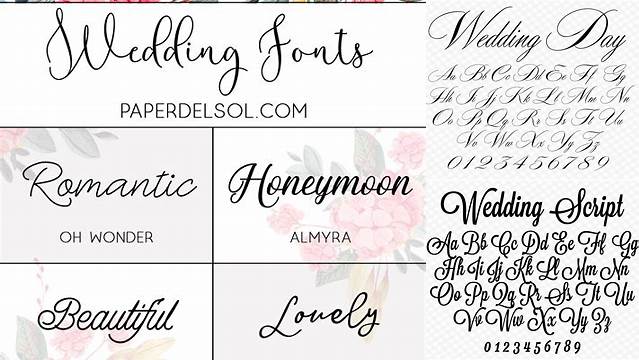
Cursive Fonts For Wedding Cards: A Guide To Elegant Invitations
Hey everyone! Planning a wedding is a whirlwind, right? From the venue to the dress, there's a lot on your plate. But one of the most important details is often overlooked: the wedding invitations. And what makes an invitation truly stand out? The font! Today, we're diving deep into the world of cursive fonts for wedding cards. We'll explore the best options, how to use them, and why they're the perfect touch of elegance for your special day. So, grab a coffee (or tea!), and let's get started. We're going to cover everything from the classic looks to some fresh, modern takes. Get ready to find the perfect font to make your wedding invitations unforgettable!
H2: The Timeless Allure of Cursive Fonts
So, why are cursive fonts for wedding cards so popular? Well, guys, it all boils down to a few key things. First off, cursive fonts exude a sense of timeless elegance. Think about it: they evoke a feeling of romance, sophistication, and a touch of old-world charm. They're the kind of fonts that make you want to frame the invitation, right? They have a way of making your wedding feel extra special. The swirling strokes and flowing letters instantly elevate the overall look of your invitation, making it clear that this is a celebration of love. Cursive fonts also add a personal touch. They often mimic handwriting, which makes the invitation feel more intimate and less like a mass-produced flyer. This personal touch is especially important for weddings. Because, let's be real, your guests want to feel like they're part of something personal and meaningful. This feeling is exactly what cursive fonts are designed to provide. Plus, cursive fonts are versatile. They can be paired with a variety of design elements, from classic floral patterns to modern geometric designs. This versatility means that you can use cursive fonts to create a wedding invitation that perfectly reflects your unique style and the overall theme of your wedding. It really is all about making your wedding invitation look stunning and special. When you choose cursive fonts for wedding cards, you're choosing to make a statement. It's a statement that says, 'We're celebrating love, and we want you to be a part of it.' That sounds pretty good, right? The right font helps set the tone for your entire wedding, so it's important to select it carefully.
H2: Top Cursive Font Choices for Wedding Invitations
Alright, let's get down to brass tacks and talk about some of the best cursive fonts for wedding cards. There are tons of options out there, so I'll break down some of my favorites. First up, we have Script MT Bold. This font is a classic for a reason. It's elegant, readable, and has a timeless feel. It's perfect for the names of the couple or for a beautiful, flowing script on your invitation. Another top choice is Shelley Allegro. It has a more delicate and feminine vibe. It's perfect for a romantic wedding or for invitations that have a vintage feel. If you are after something a bit more modern, check out Black Jack. It offers a more contemporary twist on the classic script font. Plus, it looks amazing in both black and white or in metallic shades. Then there's Dancing Script. Dancing Script is a more playful choice. It's still elegant, but it has a more relaxed and approachable feel. It is perfect if you're going for a slightly less formal invitation. Lastly, let’s not forget about Brush Script MT. This font has a handwritten look and feel, which is perfect for a more personal touch. It's a great option for RSVP cards or other details where you want a more intimate vibe. When choosing cursive fonts for wedding cards, the key is to choose the fonts that resonate with your style. Also, keep in mind the overall theme of your wedding. Remember, your invitations are the first glimpse your guests will get into your special day.
H3: Script MT Bold: A Timeless Classic
If we're talking about the best cursive fonts for wedding cards, we have to start with Script MT Bold. Seriously, it’s a classic for a reason! This font has been a go-to for weddings for ages, and for good reason. It just works! Script MT Bold is super elegant, with a great balance of boldness and finesse. It’s readable enough to be used for important details like names and dates, but still has that beautiful cursive flow that makes it feel special. What I love about Script MT Bold is that it is so versatile. It can work with a wide variety of wedding themes. From a traditional, formal wedding to something a little more modern, it really fits the bill. You can pair it with classic serif fonts for a super elegant look, or with something a bit more modern to create a contrast that is stunning. You can even use it for headings and subheadings in your invitation suite. For the best results, make sure to choose the right size and spacing. A font that's too small can be difficult to read, while spacing that is too tight can make the text look cramped. It's also worth considering how the font will look on different paper types. Some paper textures can affect the overall appearance of the font, so it's good to experiment with a few samples. When it comes to wedding invitations, Script MT Bold is a safe bet. It’s a choice that will never go out of style. Your guests will be impressed, and you’ll have beautiful invitations that you can treasure for years to come.
H3: Shelley Allegro: Delicate and Romantic
Next on the list of cursive fonts for wedding cards, we have Shelley Allegro. This font is all about romance and delicate details. If you're dreaming of a wedding that is filled with flowers, soft colors, and a vintage feel, then Shelley Allegro is the perfect choice for your invitations. This font has a beautiful, flowing script that is reminiscent of classic calligraphy. It’s perfect for adding a touch of whimsy and elegance to your wedding stationery. The delicate lines and graceful curves of Shelley Allegro make it ideal for highlighting the names of the couple, or for creating a romantic quote to set the tone for the wedding. I love how this font can instantly transform an invitation from something standard to a work of art. Shelley Allegro works well with other soft, romantic elements like watercolor backgrounds, floral illustrations, and pastel color palettes. It's also a great choice for pairing with simpler, more modern fonts for body text. This creates a lovely balance of style and readability. When using Shelley Allegro, it's important to consider the paper stock. A textured paper like linen or watercolor paper can enhance the romantic feel of the font. Make sure to choose a color palette that complements the font. Soft pastels, blush tones, and muted gold accents work particularly well. Shelley Allegro is a fantastic choice if you want your wedding invitations to be as beautiful and romantic as your love story. It's a font that will surely capture the hearts of your guests and create a lasting impression.
H3: Black Jack: A Modern Twist on Cursive
For those of you looking for a more contemporary feel, let's talk about Black Jack. This font offers a modern twist on the classic cursive fonts for wedding cards. It's bold, stylish, and perfect for couples who want to make a statement with their invitations. Unlike some of the more delicate script fonts, Black Jack has a strong, assertive presence. It's ideal if you want your invitations to stand out. It's a font that can be paired with sleek design elements. Think clean lines, minimalist layouts, and bold color schemes. Black Jack is incredibly versatile. It looks fantastic in black and white, but it also shines in metallic shades such as gold, silver, or rose gold. When using Black Jack, it is important to choose the right supporting fonts. Pair it with a clean, sans-serif font for body text to create a balanced look. The contrast between the cursive and the sans-serif font will enhance the modern appeal of the invitation. Consider using Black Jack for the couple's names, the date, or a key phrase, while using a more readable font for the body of the invitation. In terms of paper stock, Black Jack looks great on heavier, high-quality paper. Matte or slightly textured paper can enhance the font's boldness and sophistication. Black Jack is a great way to give your wedding invitations a contemporary edge. It's perfect for couples who want their invitations to reflect their modern style and personality. This font will leave a lasting impression on your guests and set the tone for a stylish, unforgettable celebration. So go ahead and embrace the modern side of love and use Black Jack for your wedding invitations!
H2: Pairing Cursive Fonts with Other Fonts
Alright, let's talk about a crucial aspect of using cursive fonts for wedding cards: pairing them with other fonts. Because let's be honest, you rarely use just a cursive font on an invitation. You need something for the body text, right? You need to make sure your invites are easy to read and look great. The key to a good pairing is balance and contrast. You want the cursive font to be the star, but you don't want it to overshadow everything else. A good rule of thumb is to pair a cursive font with a more simple, readable font. This could be a sans-serif font, like Arial or Helvetica, or a clean serif font, like Times New Roman or Garamond. These fonts are great for body text because they're easy to read, which is super important for your guests. The contrast between the cursive font and the more straightforward font creates visual interest and makes the invitation more appealing. When choosing fonts, consider the mood you're trying to create. If you're going for a classic, elegant look, you might pair a traditional cursive font with a classic serif font. For a more modern look, you could pair a contemporary cursive font with a clean sans-serif font. Another tip: try to limit yourself to two or three different fonts on your invitations. Too many fonts can make the invitation look cluttered and confusing. Make sure the fonts you choose complement each other and work together to create a cohesive design. Experiment with different font combinations to find what you like best! Try printing out samples of your invitation to see how the fonts look together in the real world. It's the only way to be sure you're happy with the final product.
H3: Cursive with Sans-Serif: A Modern Combination
Pairing cursive fonts for wedding cards with sans-serif fonts is a fantastic way to achieve a modern and stylish look. This combination is perfect for couples who are aiming for a contemporary wedding with a touch of elegance. Sans-serif fonts, with their clean lines and lack of serifs, offer a beautiful contrast to the flowing, ornate style of cursive fonts. The key to this pairing is to find a balance. Choose a cursive font that is elegant but not overly elaborate, and then select a clean, readable sans-serif font for the body of your text. Some great sans-serif font options to consider include: Helvetica, Arial, Lato, and Open Sans. These fonts are all widely available and easy to read, making them ideal for use in wedding invitations. You can use the cursive font for the couple's names, the date, and any special headings or quotes you want to highlight. The sans-serif font can then be used for the body of the invitation, the RSVP details, and any other information your guests will need. When you use these two styles, you create a visual hierarchy that draws the eye to the most important information. This modern combination also works well with a variety of design elements. You can pair it with minimalist layouts, geometric shapes, and bold color palettes for a truly contemporary feel. If you are feeling creative, add a touch of metallic accents such as gold or silver foil, to add some glamour and sophistication to the invitation. Always remember to consider the overall tone and style of your wedding when choosing fonts. This combination is perfect for weddings that want to be modern and stylish. It’s an excellent way to make sure your wedding invitations are visually appealing and easy to read. You will make your wedding invitations stand out.
H3: Cursive with Serif: Classic Elegance
If you're leaning towards a more classic and elegant look for your wedding, pairing cursive fonts for wedding cards with serif fonts is a beautiful choice. Serif fonts, with their elegant, traditional feel, complement the flowing lines of cursive fonts perfectly. This combination is timeless and sophisticated, making it ideal for formal or traditional weddings. To achieve this look, start by selecting a cursive font that is elegant and refined. Then, pair it with a serif font that is easy to read and has a classic style. Some excellent serif font options for wedding invitations include: Times New Roman, Garamond, Georgia, and Playfair Display. These fonts offer a timeless elegance and are easily readable. Use your cursive font for the couple's names, the date, or any special headings you want to highlight. Then, use the serif font for the body of the invitation, RSVP details, and any other essential information. The serif font will provide a clean, readable base, while the cursive font will add a touch of romance and personality. To take the classic elegance even further, you can incorporate design elements like: classic floral designs, elegant borders, and traditional color palettes. If you are using a dark background, ensure that the font is a light color so that your guests can read all the information. This pairing is perfect for weddings that want a classic, sophisticated aesthetic. It’s a way to add some romance and personality to the invitation while keeping it easy to read. This will ensure that your wedding invitations are beautiful and memorable. This combination exudes a sense of timeless style and grace.
H3: RSVP Cards and Additional Details
Now that you know the basics of using cursive fonts for wedding cards, let’s focus on the RSVP cards and other additional details. While the main invitation sets the tone, your RSVP cards and any inserts should continue the aesthetic and ensure that all the important information is communicated clearly. When designing your RSVP cards, use a combination of your cursive font with a more legible font for the body. Cursive fonts can be used for phrases such as